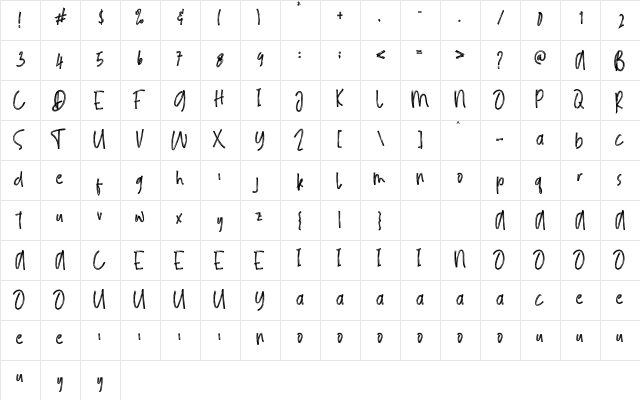
BlackPaper Regular
| Designer | Iqbalfaizinm |
Design Context for BlackPaper Typeface
BlackPaper is a composed and adaptable typeface that performs quietly and consistently across a wide range of design contexts.